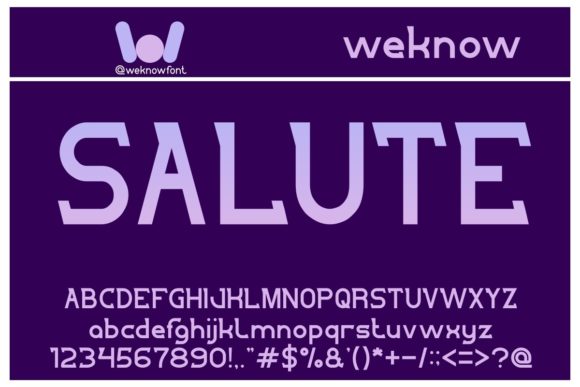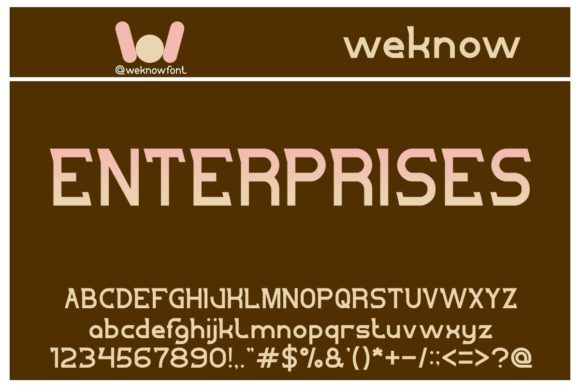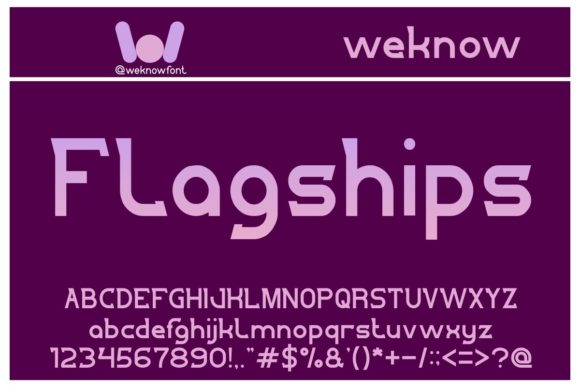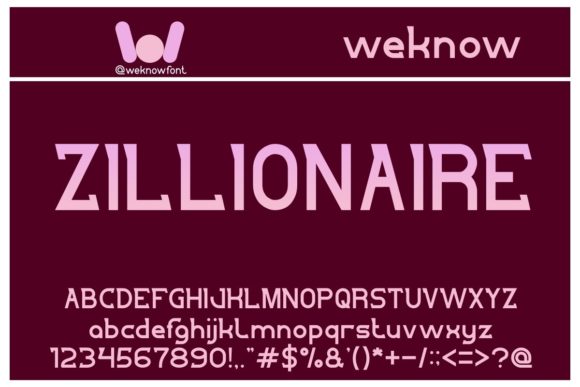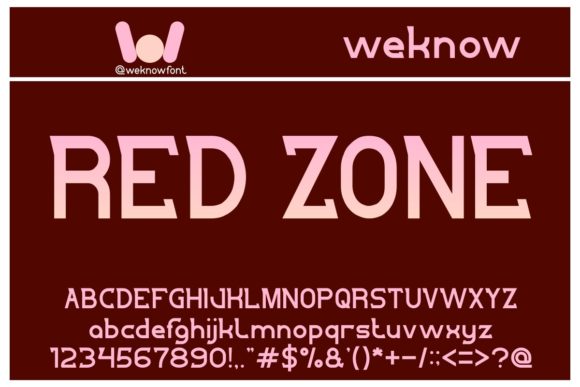
Salute
Salute: A Fancy Slab Serif Font
Salute is a fancy slab serif font suitable for a wide range of creative design projects. Whether you’re working on logos, logotypes, headlines, corporate identity, or brand identity, this font adds a stylish touch. It’s also perfect for the apparel industry, posters, music, movies, games, magazines, books, comics, cartoons, YouTube, Instagram, websites, and more.
Key Features of Salute
• Fancy Design: Offers an elegant and sophisticated look suitable for upscale applications.
• Slab Serif Structure: Features thick, rectangular serifs typical of slab serif fonts.
• Versatile Application: Ideal for a wide range of creative projects requiring a standout appearance.
• Impactful Presence: Designed to make designs stand out with its unique aesthetic.
Ideal Uses for Salute
Salute’s unique characteristics make it particularly well-suited for:
When incorporating Salute into your designs, consider these tips:
• Use for headlines or short blocks of text to showcase its fancy style.
• Utilize its versatility across various creative projects to enhance visual appeal.
Salute is an excellent choice for designers looking to add a fancy slab serif font to their typographic toolkit. Its ability to bring elegance and style to various design projects makes it stand out in the world of typography. Whether you’re working on logos, creating layouts for magazines, or developing content that requires a touch of sophistication, Salute offers the perfect blend of style and functionality.
Furthermore, Salute’s unique design allows it to shine in various contexts. From vintage-inspired designs with a modern twist to more contemporary layouts that need a touch of uniqueness, this font can elevate your projects. Its striking yet functional style works particularly well in designs that require a thoughtful and engaging mood.
In conclusion, Salute is a font that truly captures the essence of creativity and impact in typography. Its ability to work well in both minimalist projects and more elaborate layouts showcases its flexibility. For those looking to add a touch of unique charm to their work, Salute can even enhance themed creations with its distinctive style. It’s the perfect choice for designers seeking to make a strong, stylish impact across a wide range of creative projects.